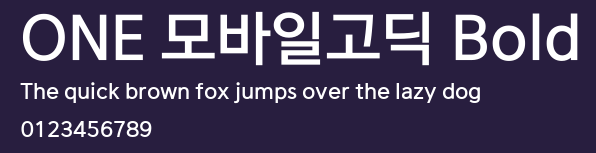
ONE 모바일고딕 Bold Preview
• Font Name: ONE 모바일고딕 Bold
• Full Font Name: ONE 모바일고딕 Bold
• Designer: 박용락;
• Manufacturer: ONESTORE
About ONE 모바일고딕 Bold.ttf
ONE 모바일고딕 Bold.ttf is a modern, elegant sans-serif font designed for ultimate readability and visual harmony. Perfect for branding, headlines, web design, and print materials.